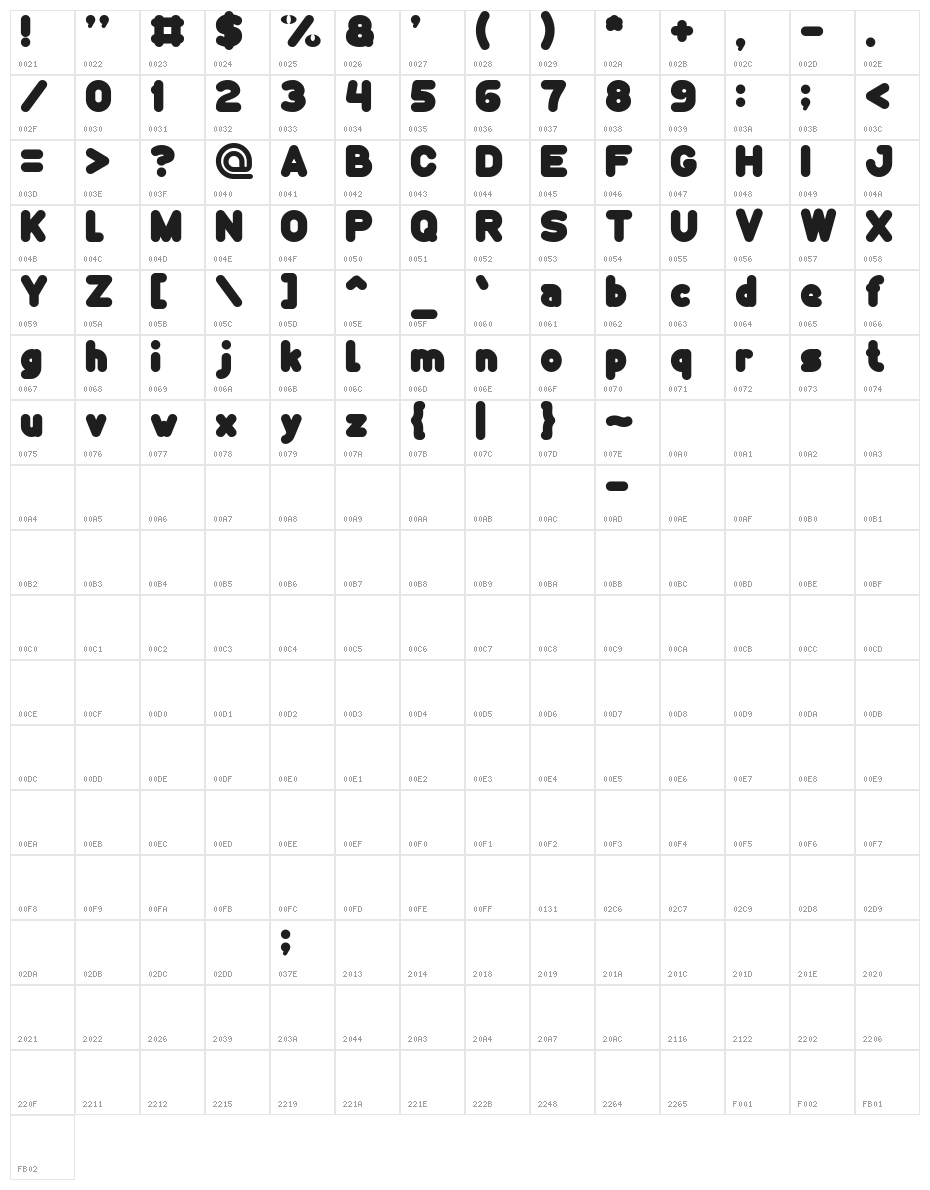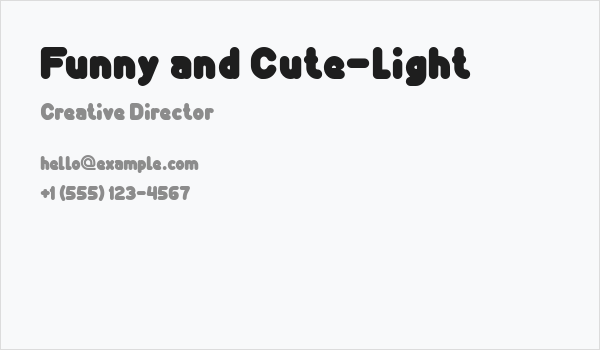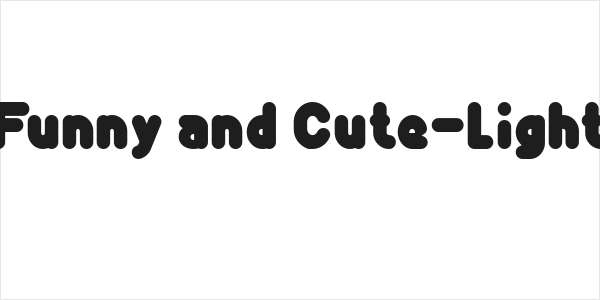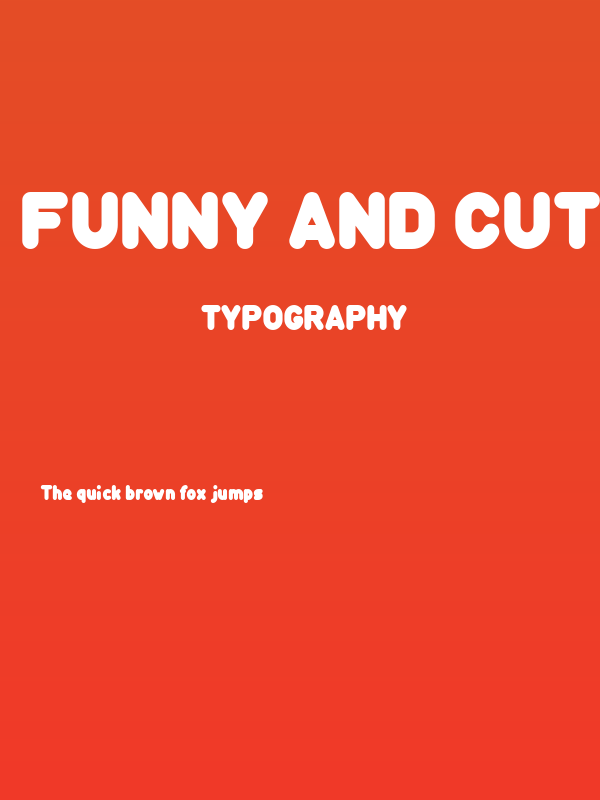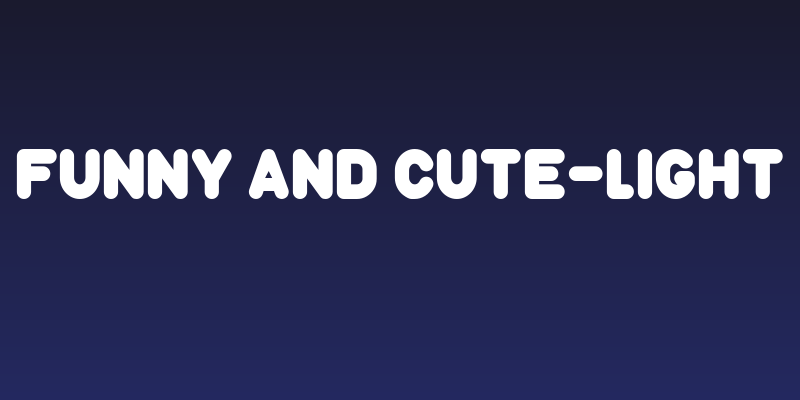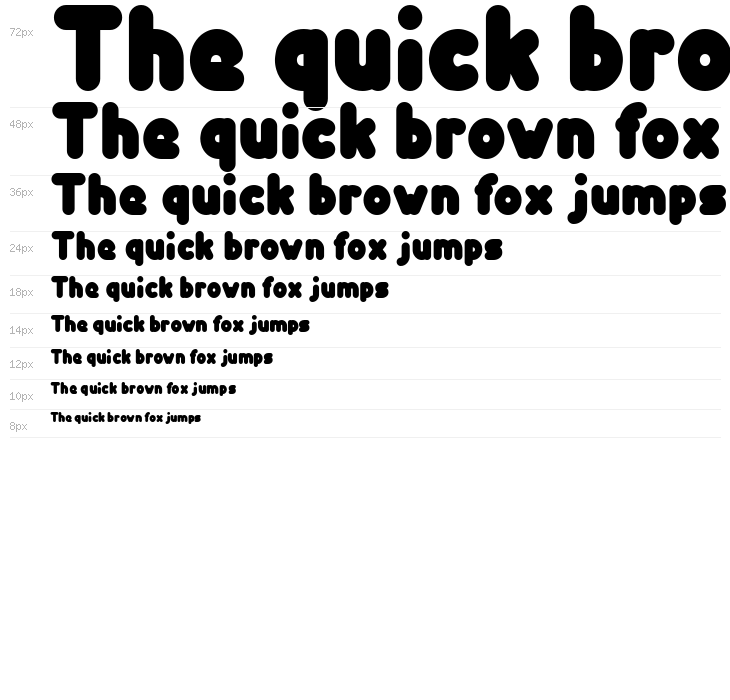
Funny and Cute-Light Font
Funny and Cute-Light Description
This playful and rounded font exudes a sense of fun and whimsy. The characters are bold and have a soft, pillowy appearance, making them stand out with a friendly and approachable vibe. The uniform thickness of the strokes gives it a cohesive look, while the rounded edges add a touch of softness. This font is perfect for projects that aim to convey a lighthearted and cheerful tone. Its boldness ensures readability, while the unique style makes it memorable and engaging.
| Proposed Projects | Ideal for children's books, playful branding, party invitations, and fun social media graphics. |